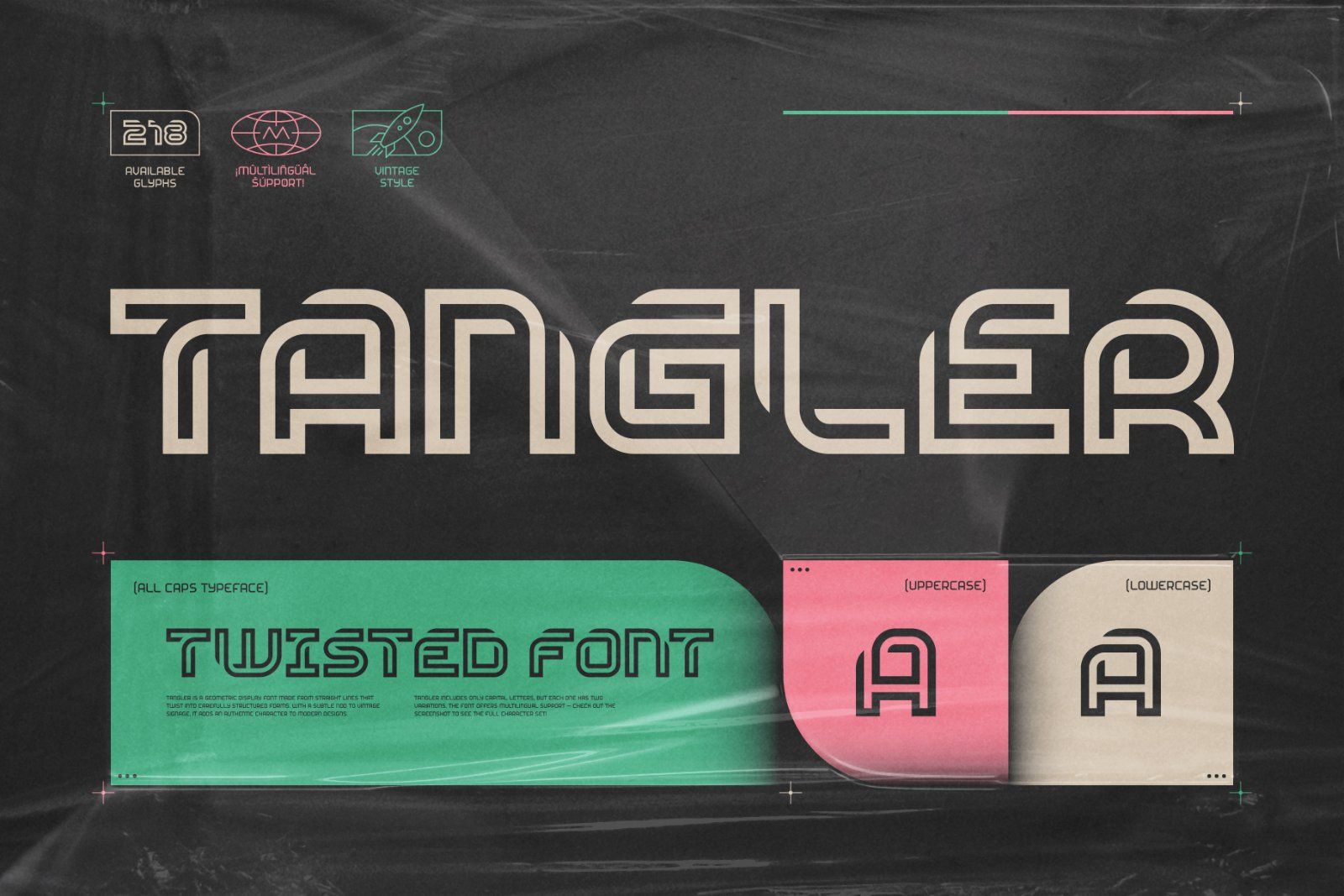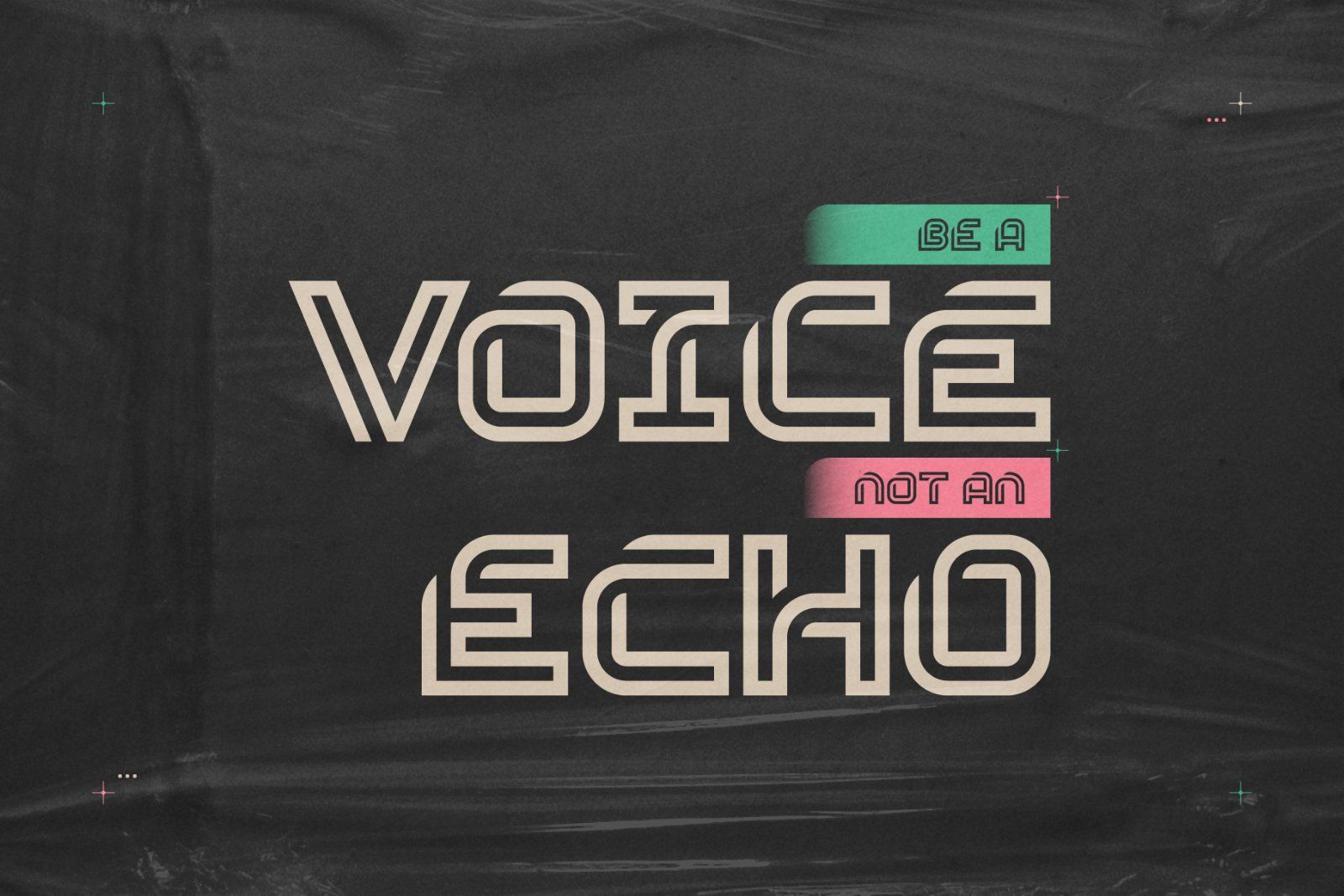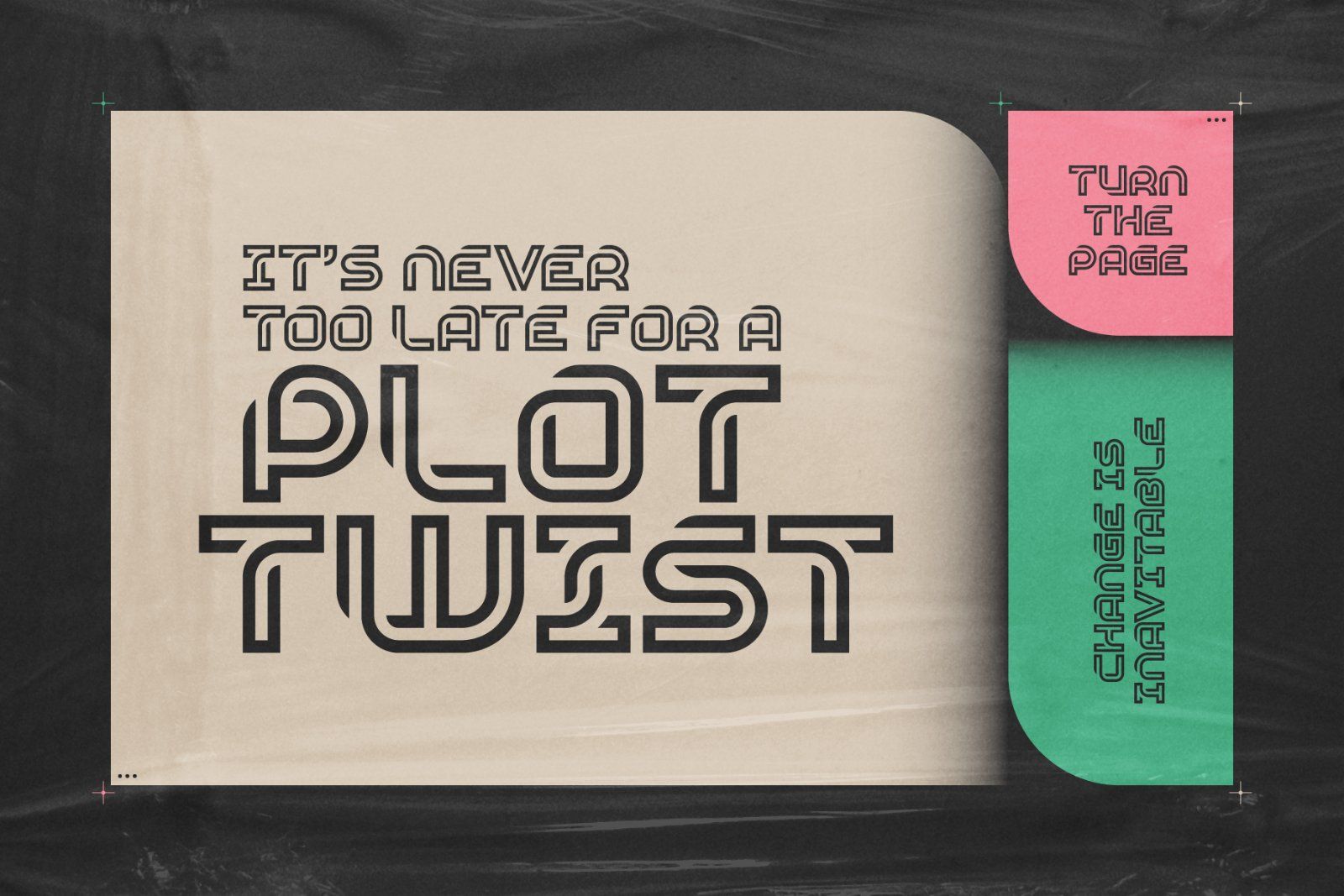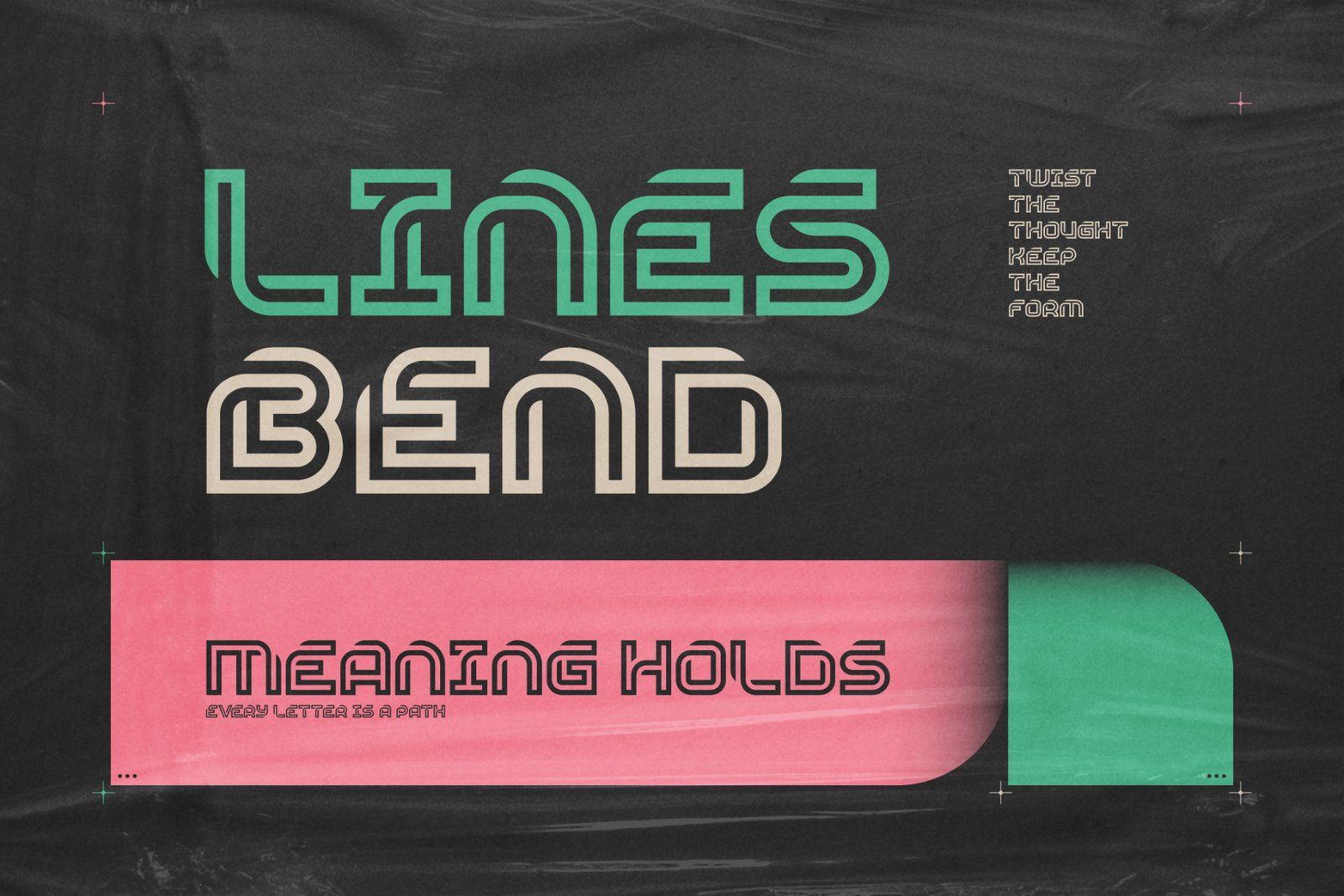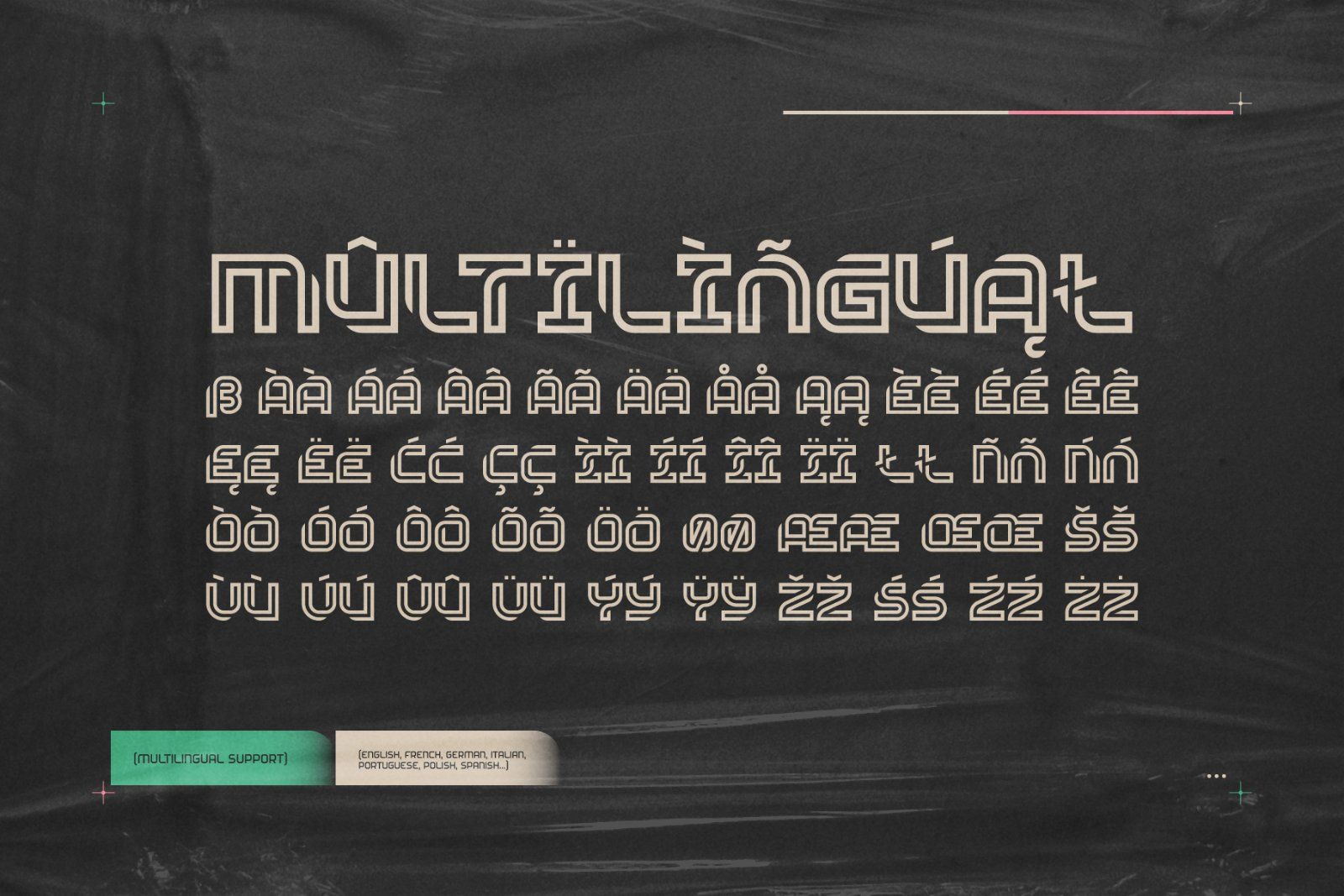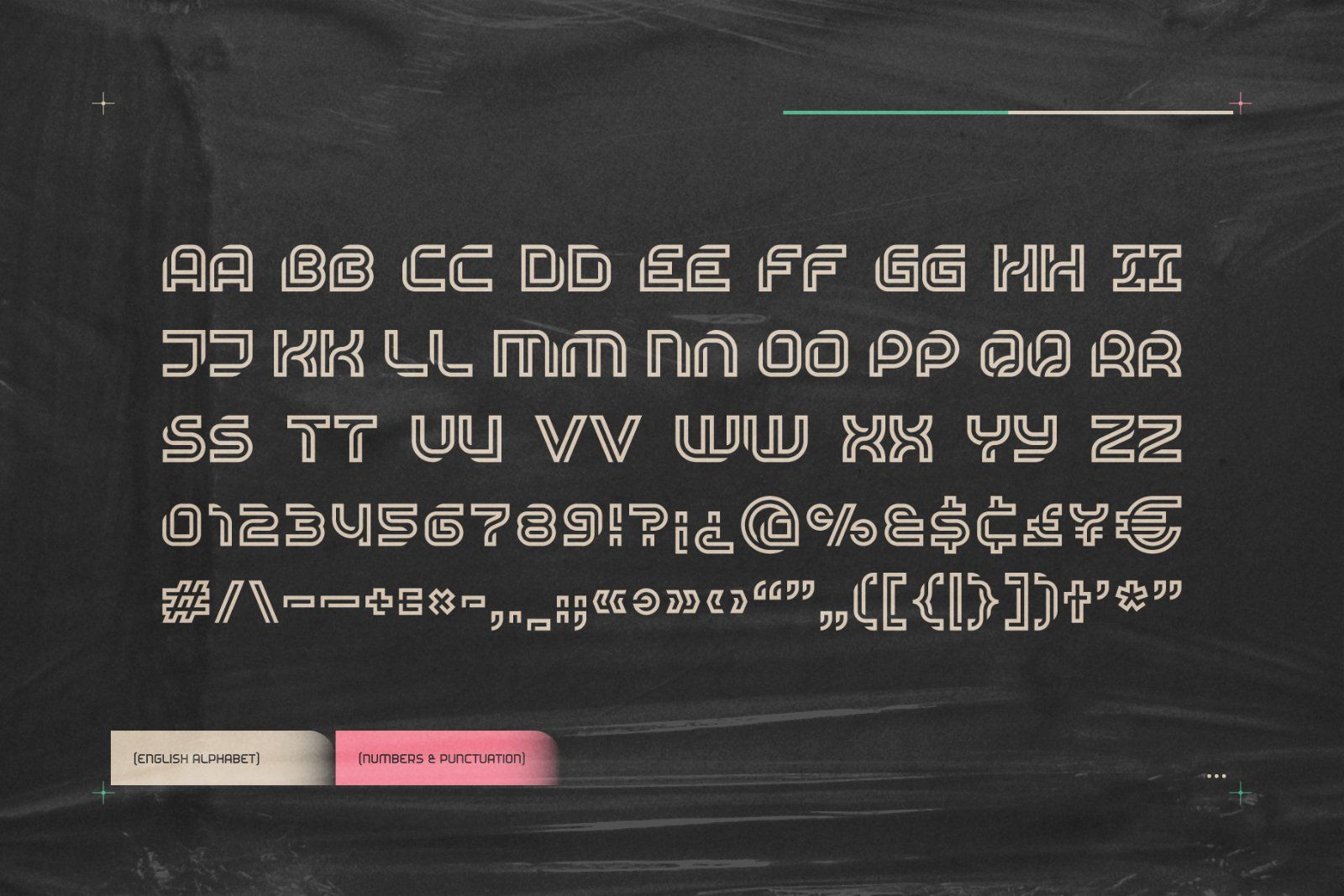
MarketplaceFontsTangler - Twisted Font
Tangler is a geometric display font made from straight lines that twist into carefully structured forms. With a subtle nod to vintage signage, it adds an authentic character to modern designs.
Tangler includes only capital letters, but each one has two variations. The font offers multilingual support — check out the screenshot to see the full character set!